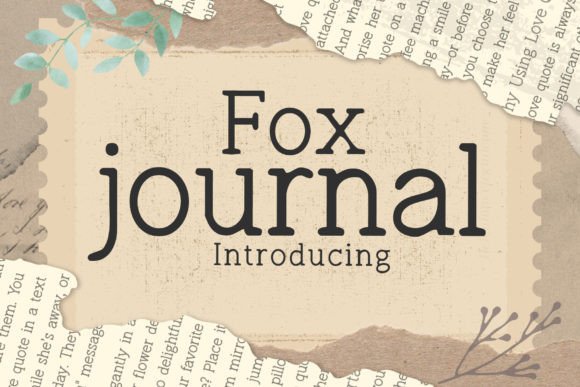
Why Fox Journal is a Game-Changer for Marketers
It’s 9:45 AM, and I’m staring at a stack of social media graphics for an upcoming product launch. The client wants something eye-catching but not overwhelming—something that feels authentic and easy to read. I’ve been tweaking headlines, adjusting spacing, and testing different fonts. Then I remember: Fox Journal. A clean serif typeface with a playful edge. It’s the kind of font that makes your message feel like it was written by someone who actually cares.
When you’re working on campaign visuals, the right font can make or break the first impression. Fox Journal has this unique balance between casual and professional. It’s not too rigid like traditional serif fonts, but it still carries that elegant, refined feel. It works well in both digital and print formats, which is a huge plus when designing across multiple platforms.
One of the first things I do when starting a new project is check how the font looks on mobile screens. That’s where most of the engagement happens. Fox Journal holds up really well on small previews and thumbnails. Its open letterforms and consistent stroke weights help maintain readability even when the text is tiny. That’s crucial for Instagram posts, YouTube thumbnails, or Pinterest pins where the viewer might only catch a glimpse of the text.
How Fox Journal Enhances Visual Hierarchy
Visual hierarchy is everything when it comes to marketing. You want your message to be clear and easy to follow. Fox Journal helps establish that structure without being too flashy. It’s perfect for headlines, callouts, and subheadings. I often pair it with a simple sans serif for body text, which creates a nice contrast while keeping the design cohesive.
For example, during a recent webinar promotion, I used Fox Journal for the main title and a bold tagline. The font added a sense of personality to the design, making the content feel more approachable. It wasn’t just a list of dates and times—it felt like a friendly invitation to join the conversation.
Another time, I designed a series of promotional banners for an online shop. Using Fox Journal for the product titles and sale announcements made the messaging stand out. It didn’t compete with the images, but it still commanded attention. That’s the power of a well-chosen typeface.
Real-World Applications of Fox Journal
Whether it’s a seasonal sale, a blog post, or a YouTube video, Fox Journal adapts beautifully. I’ve used it for inspirational quote graphics, email banners, and even as part of a branded template set. It adds a touch of creativity without being distracting.
One of my favorite uses is for social media captions. When paired with a modern sans serif, it gives the text a balanced look. The serifs add character, while the sans serif keeps things clean and readable. It’s also great for logo-style text—something that can be used across different brand assets without feeling out of place.
When working on a Pinterest campaign, I found that Fox Journal worked well for pin titles and descriptions. The font’s clarity helped the content perform better in search results, which is always a win. It’s also useful for dark background designs, where some fonts can become hard to read. Fox Journal maintains its legibility even in low-light environments.
Font Pairing and Design Considerations
Typography is all about balance. Fox Journal pairs well with a variety of other fonts, depending on the tone you want to achieve. For a more polished look, try pairing it with a classic serif like Georgia or Baskerville. If you want something more contemporary, a clean sans serif like Lato or Montserrat can create a fresh, modern vibe.
For a more creative or artistic feel, consider using a script or handwritten font alongside Fox Journal. Just be careful not to overdo it—too many different styles can confuse the viewer. The key is to let the font support the message rather than overshadow it.
Before finalizing any design, I always check the font’s available styles, alternates, and ligatures. These details can make a big difference in the overall look and feel. Also, make sure the font includes multilingual support if your audience is global. And don’t forget about commercial licensing—especially if you’re using it for client projects or branded content.
Final Thoughts on Fox Journal
As a marketer, I know how important it is to choose the right tools for the job. Fox Journal isn’t just another font—it’s a versatile asset that can elevate your campaign visuals. It’s easy to work with, visually appealing, and adaptable to different design needs. Whether you’re creating a social media post, a webinar banner, or a promotional graphic, Fox Journal can help make your message more engaging and memorable.
Every time I use it, I’m reminded that typography isn’t just about aesthetics—it’s about communication. Fox Journal helps turn ideas into clear, compelling messages that resonate with your audience. And that’s what marketing is all about.